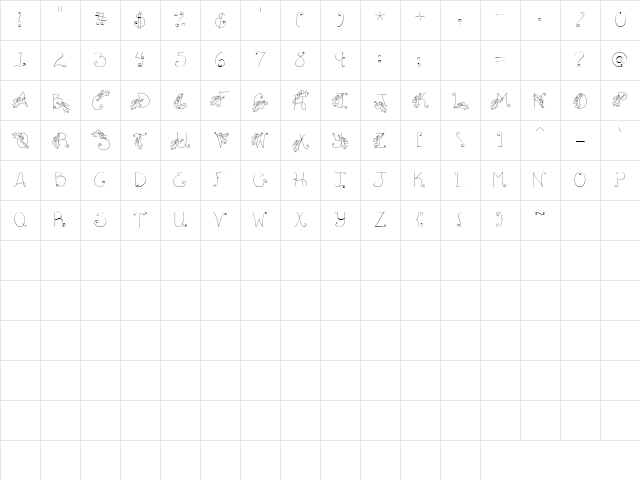
LD Fairies Regular Free Font
LD Fairies Regular
Design Context for LD Fairies
LD Fairies is a composed and adaptable typeface that performs quietly and consistently across a wide range of design contexts.